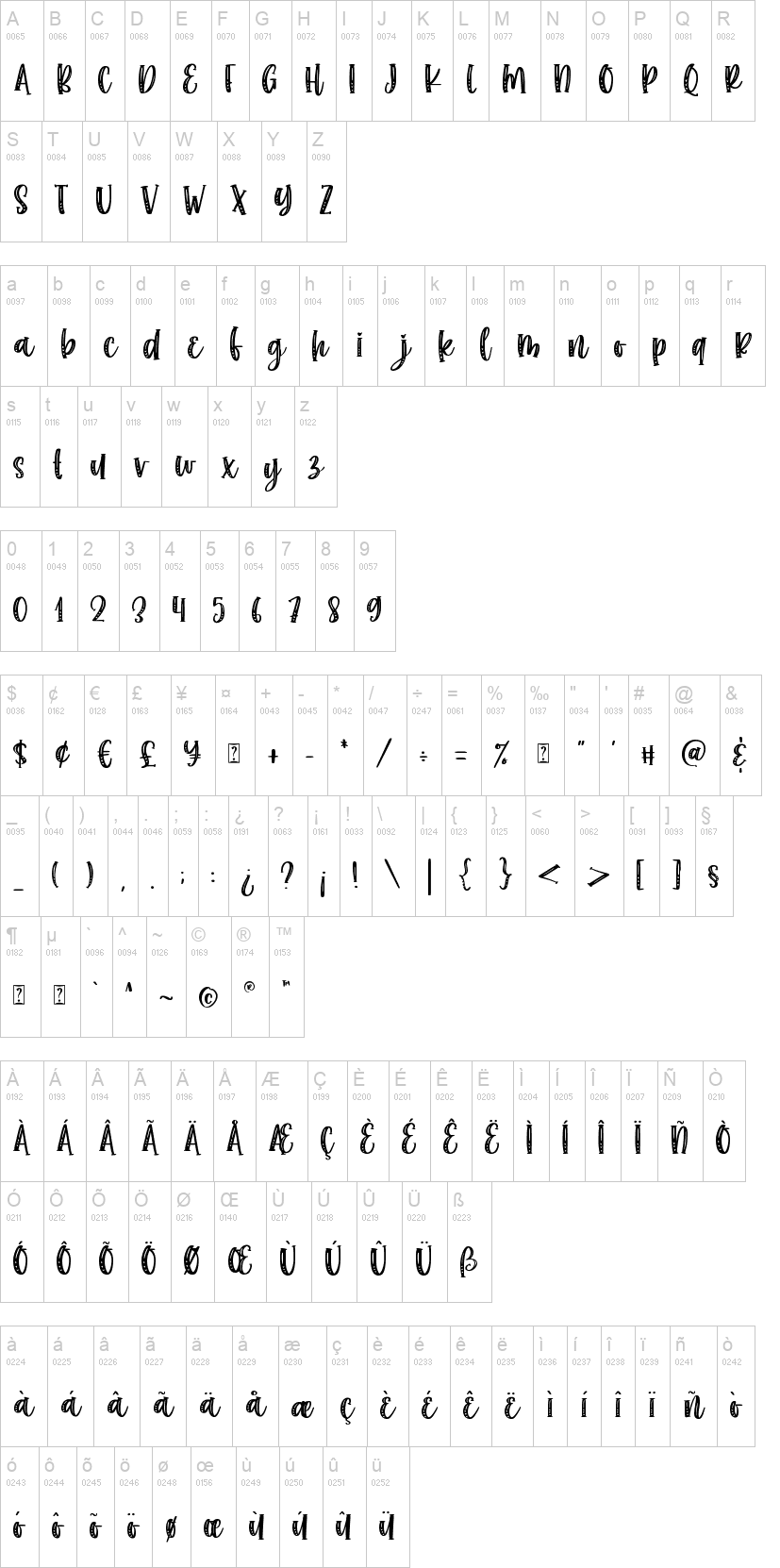
CHOCO MATCHA
- quirky handwritten font duo with doodles -
This font is designed for crafters.
It is great for wedding invitation, tote bag design, mug, cutting, silhouette, branding, packaging, quotes, t-shirt design, card, banner, and anything of craft project.